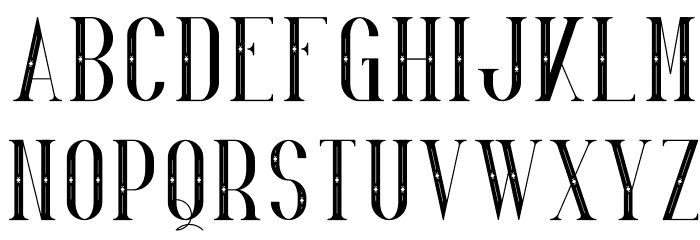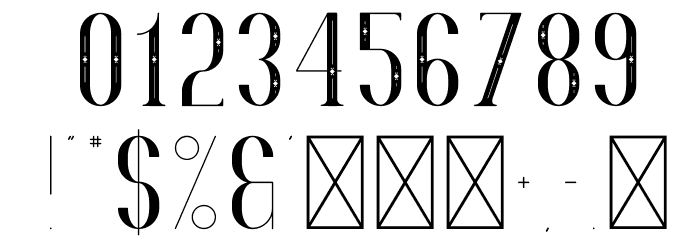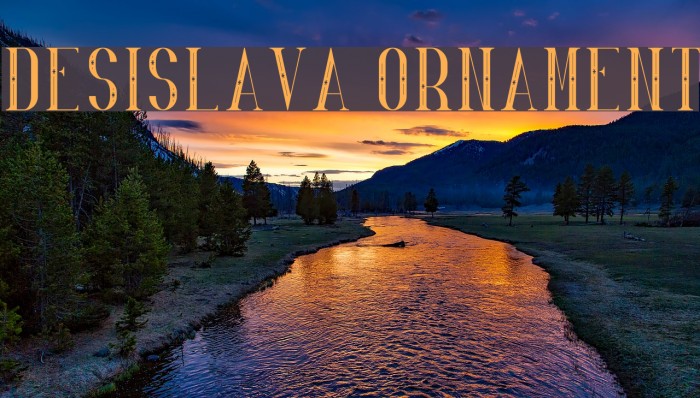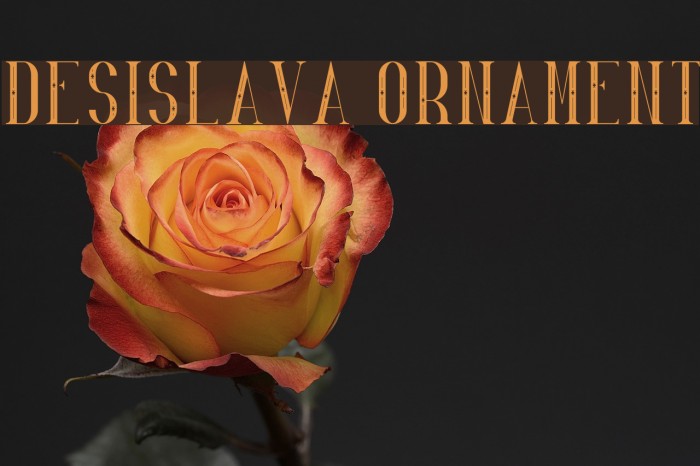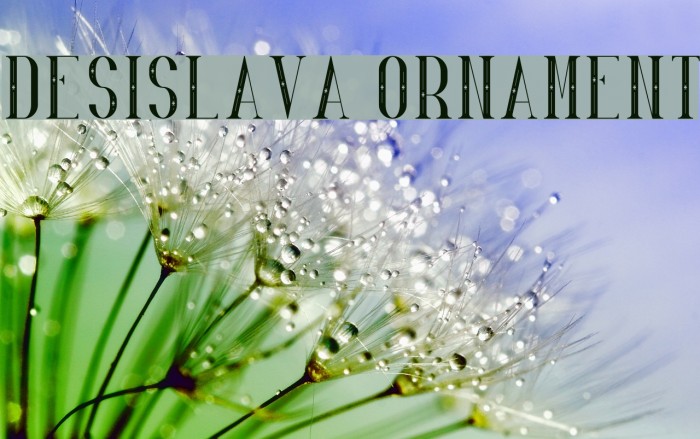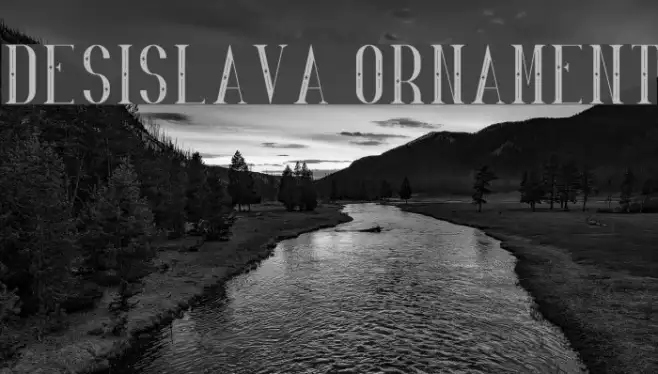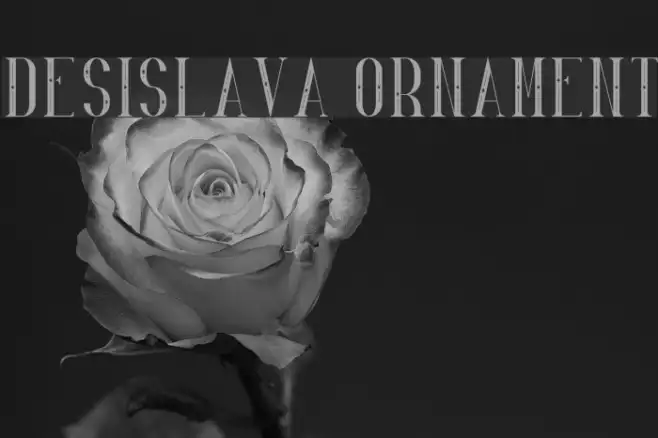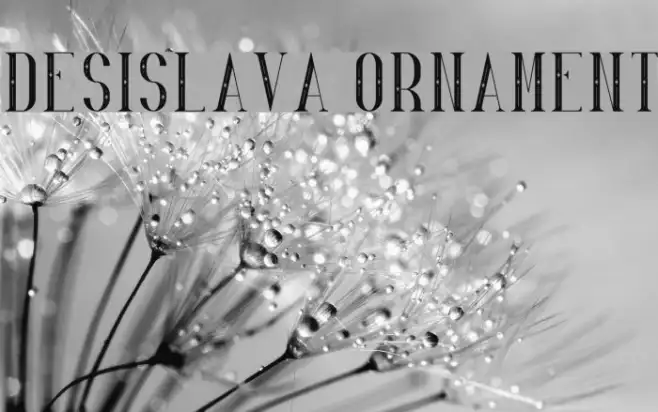
Desislava Ornament Font
This font features a decorative and elegant design with a classic serif structure. Each character is adorned with intricate star-like ornaments, adding a unique flair to the traditional serif style. The uppercase and lowercase letters maintain a consistent height, providing a harmonious look. The numerals are equally ornate, ensuring a cohesive appearance across all characters. The special characters are designed with the same attention to detail, making this font suitable for projects that require a touch of sophistication and creativity.
An ornate serif font with star-like decorations on each character.
- Proposed Projects: Ideal for wedding invitations, luxury branding, editorial design, and decorative posters.
- Use Case: Logos, Headlines, Invitations